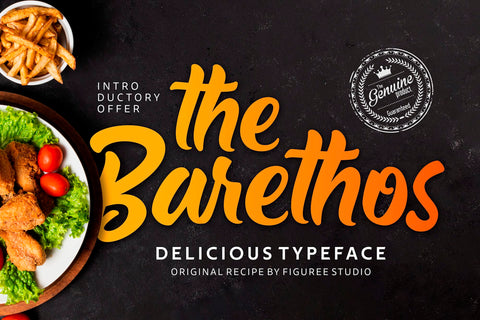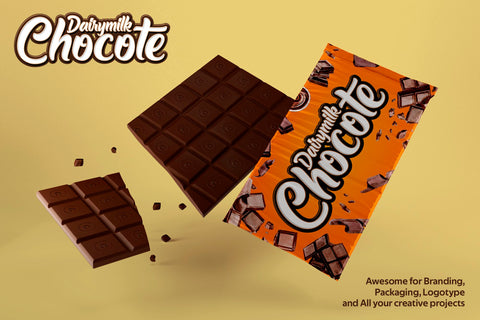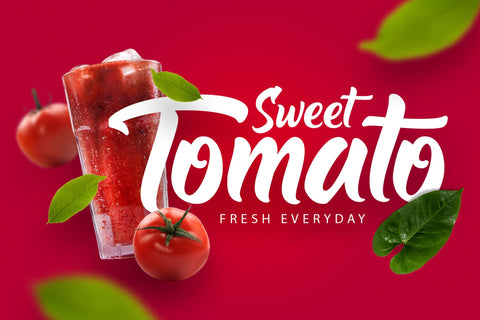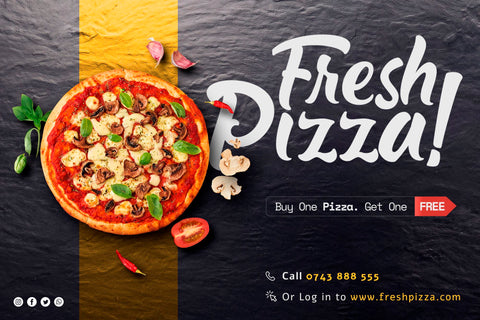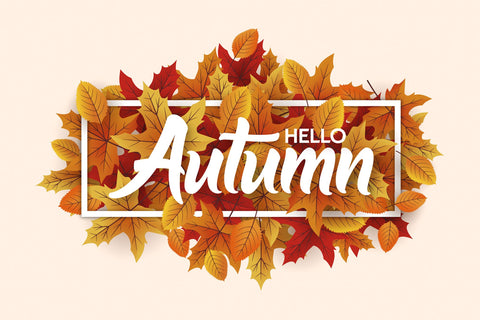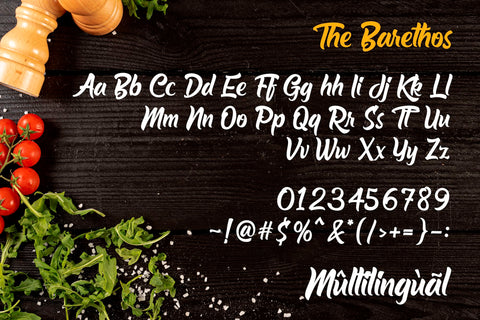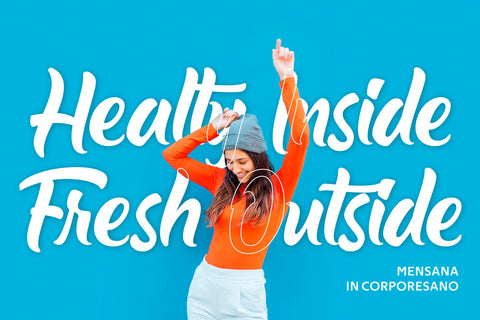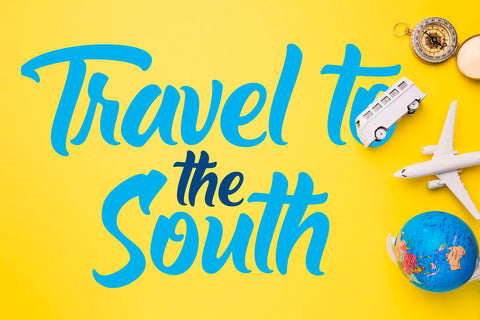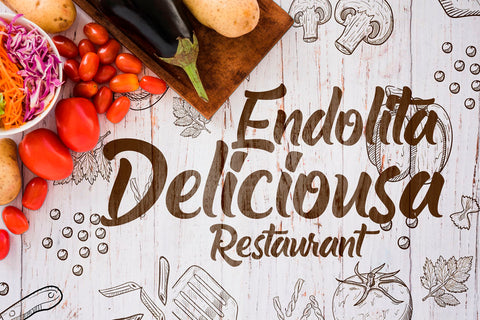
The Barethos - Delicious Script Font
The Barethos is a Delicious display font inspired by tasty food. Its unique character is very suitable for logos, packaging, branding, and other creative design needs. Very suitable combined with other fonts.